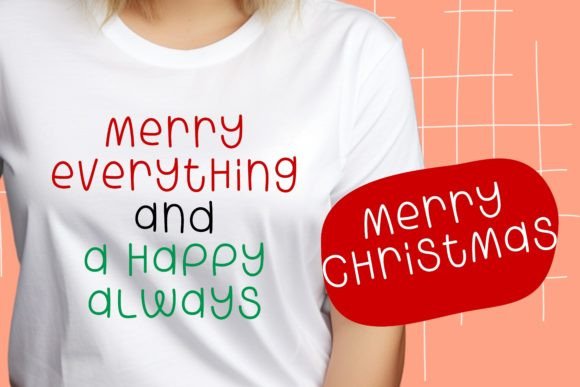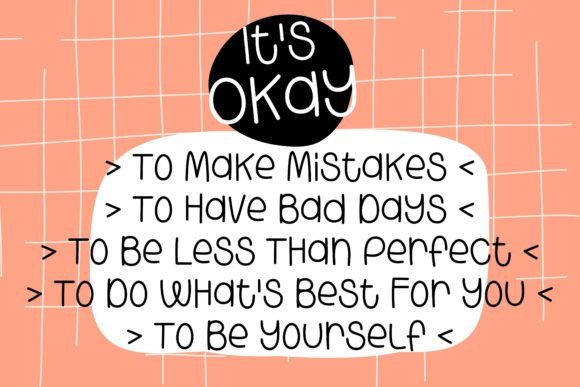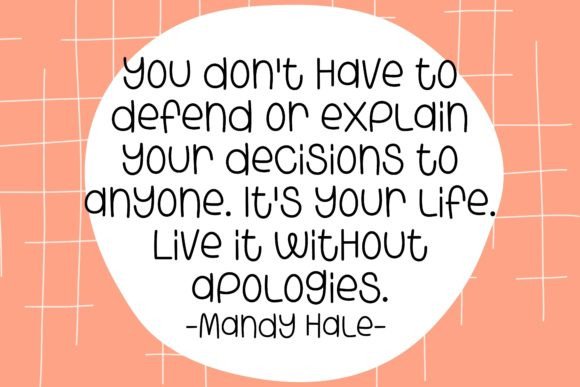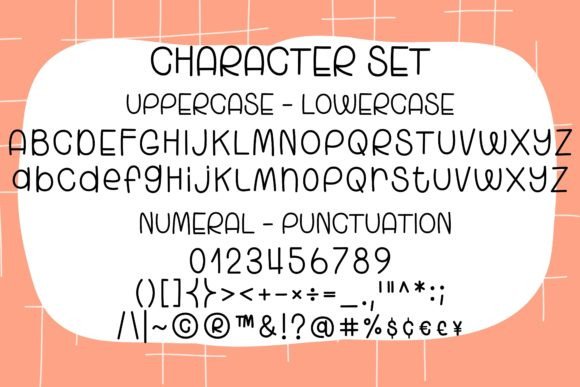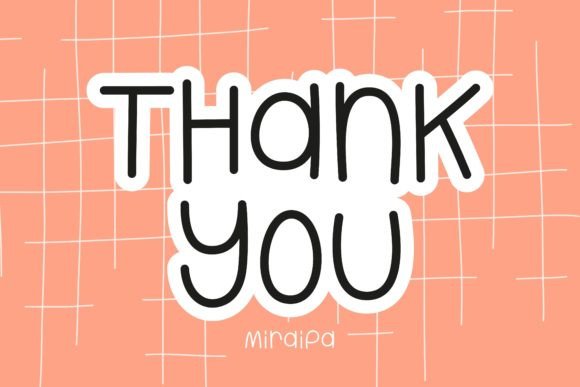
The Perfect Morning Kick-Start for Your Designs
Who hasn’t had those moments when they’re sipping their morning coffee, staring at a blank screen, and desperately searching for the perfect font to bring their creative vision to life? It’s those moments when the right font can be the difference between a mediocre design and a masterpiece.
Enter Breakfast Font, a charming sans serif font that’s designed to be the perfect companion for your fun projects and creative designs. With its cute and playful style, Breakfast Font is sure to add a whimsical touch to your work, making it a valuable asset for designers who want to stand out from the crowd.
Whether you’re designing a children’s book, a food blog, or a quirky advertising campaign, Breakfast Font is the perfect addition to your toolkit. Its quirky charm and versatility make it a valuable resource for designers who want to add a bit of personality to their work.
Breakfast Font Key Features
- Font Family: Breakfast Font is a sans-serif typeface designed for various applications, including digital media and print materials.
- Character Count: The font family includes a wide range of characters, including uppercase and lowercase letters, numbers, punctuation, and special symbols.
- Font Size: Designed to be highly legible at various font sizes, from 8-point to 24-point, making it suitable for a wide range of applications.
- Resolution: Optimized for high-resolution displays, ensuring crisp and clear typography in digital applications.
- Unique Characteristics: Breakfast Font features a distinctive rounded edge and a friendly, approachable feel, making it ideal for branding and marketing materials.
Breakfast Font Review
I must say, I was excited to dive into the “Breakfast Font” – a playful, sans-serif typeface designed to evoke the feeling of a warm, sunny morning. ✨ The font’s rounded edges and friendly curves do a great job of creating a sense of approachability, making it perfect for casual branding, advertising, and even children’s content.
One of the standout features of “Breakfast Font” is its excellent legibility, even at smaller font sizes. This makes it a great choice for digital applications where text needs to be easily readable. ✨ Additionally, the font’s OpenType features allow for some interesting ligatures and swashes, adding an extra touch of personality to your designs.
However, there are a few limitations to keep in mind. ⚠️ For one, the font’s rounded edges can sometimes make it difficult to read at very large font sizes. Additionally, the font’s friendly feel may not be suitable for more formal or professional applications.
Overall, I’d say “Breakfast Font” is a solid choice for designers looking for a fun, approachable typeface. While it may not be perfect for every project, it’s a great addition to any font collection.
- Playful, sans-serif design
- Rounded edges and friendly curves
- Excellent legibility, even at small font sizes
- OpenType features with ligatures and swashes
- Not suitable for formal or professional applications
Getting the Most Out of Breakfast Font
To get the most out of Breakfast Font, consider the following tips:
- Use it in creative and playful projects, such as food blogs or children’s books.
- Pair it with bold, bright colors to add visual interest.
Breakfast Font is commonly used in the following projects:
- Food blogs and recipes.
- Children’s books and educational materials.
- Branding and marketing materials for restaurants and food companies. Alternatives to Breakfast Font
Great Vibes is a modern script font that can be used for various design purposes, including invitations, quotes, and titles. It’s more versatile than Breakfast Font, as it has a wider range of applications. Great Vibes has a similar feel to Breakfast Font, but with more fluid and connected strokes.
Alex Brush is a handwritten script font that is suitable for designs that require a personal and elegant touch. It’s a more refined and sophisticated alternative to Breakfast Font, which makes it ideal for high-end branding and packaging. Alex Brush has a more delicate feel than Breakfast Font, but still maintains a level of sophistication.